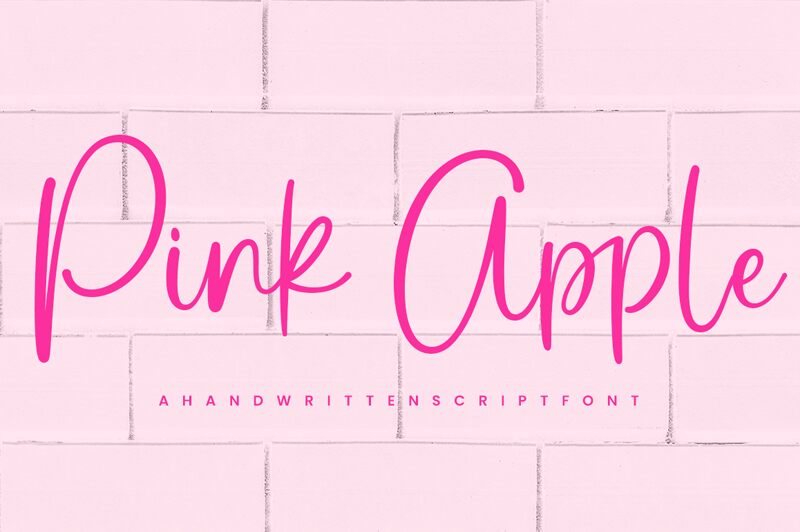
Pink Apple, the delightful semi-light handwritten font designed by Ramli Setiadi, is perfect for a variety of creative projects. Its playful and whimsical style makes it suitable for everything from children's books to wedding invitations. The semi-light weight gives it a delicate touch while still maintaining readability, making it ideal for branding and packaging design as well. Let Pink Apple bring a touch of charm to your next project, whether it be a logo, social media post or greeting card. With its unique personality, Pink Apple is sure to make your work stand out.
Pink Apple